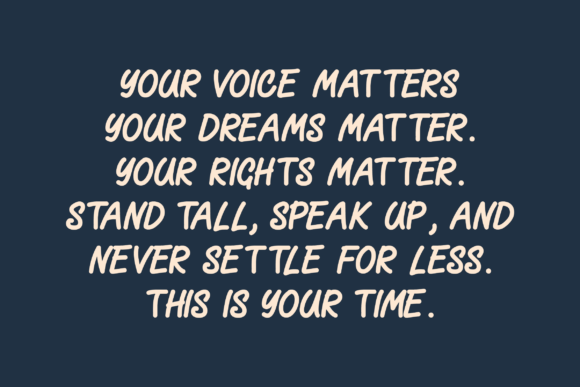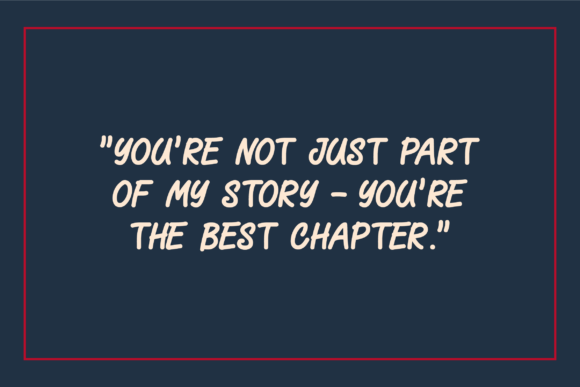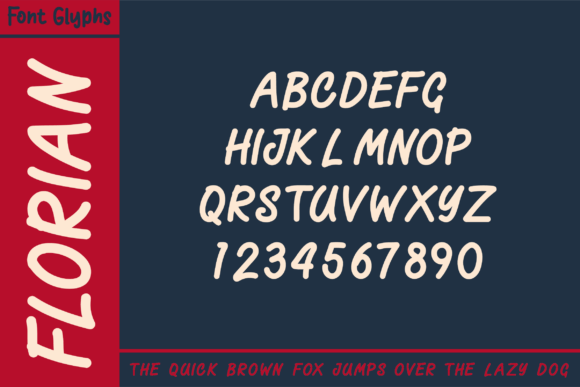
Make an Impact with Florian: A Handwritten Font that Combines Strength and Charm
In the world of design, typography plays a crucial role in conveying a message, expressing a brand’s personality, and creating a lasting impression. When it comes to choosing the right font for your project, you want something that stands out from the crowd, yet still feels approachable and authentic. This is where Florian, a stunning handwritten font, comes into play. With its unique blend of strong, bold presence and charming, personal touch, Florian is the perfect choice for designers and crafters looking to elevate their branding, packaging, social media, and print designs.
The Power of Handwritten Fonts
Handwritten fonts have a way of adding a personal touch to any design. They evoke a sense of warmth, friendliness, and approachability, making them perfect for brands that want to connect with their audience on a more human level. Unlike generic, sans-serif fonts, handwritten fonts like Florian bring a level of personality and character to your design, setting you apart from the competition.
What Makes Florian Special?
Florian is more than just a beautiful handwritten font – it’s a versatile design tool that can be used across various platforms and applications. Its unique style combines the best of both worlds: a strong, bold presence that grabs attention, and a charming, personal touch that adds warmth and authenticity. Whether you’re designing a logo, packaging, social media graphics, or print materials, Florian is the perfect choice for achieving a professional yet approachable aesthetic.
Key Features of Florian
- Unique Handwritten Style: Florian boasts a distinctive handwritten style that adds a personal touch to any design.
- Strong and Bold Presence: With its confident strokes and elegant letterforms, Florian makes a lasting impression.
- Charming and Authentic: The font’s warm and inviting feel makes it perfect for brands that want to connect with their audience.
- Versatile and Adaptable: Florian can be used across various platforms, from digital to print.
Use Cases for Florian
So, where can you use Florian? The possibilities are endless! Here are some ideas to get you started:
- Branding: Create a memorable logo or brand identity with Florian’s unique style.
- Packaging: Add a personal touch to your product packaging and make it stand out on store shelves.
- Social Media: Use Florian to create engaging social media graphics, posts, and stories that resonate with your audience.
- Print Design: Elevate your print materials, such as brochures, flyers, and business cards, with Florian’s elegant and approachable style.
Tips for Using Florian Effectively
To get the most out of Florian, here are some tips to keep in mind:
- Experiment with Font Sizes: Play with different font sizes to create visual hierarchy and emphasize important information.
- Pair with Other Fonts: Combine Florian with other fonts to create a unique and harmonious typography system.
- Use Color Effectively: Choose colors that complement Florian’s warm and inviting feel.
In conclusion, Florian is a powerful handwritten font that can elevate your designs and help you connect with your audience on a more personal level. With its unique blend of strength and charm, Florian is the perfect choice for designers and crafters looking to make an impact. Whether you’re designing for branding, packaging, social media, or print, Florian is sure to bring warmth, authenticity, and professionalism to your designs.